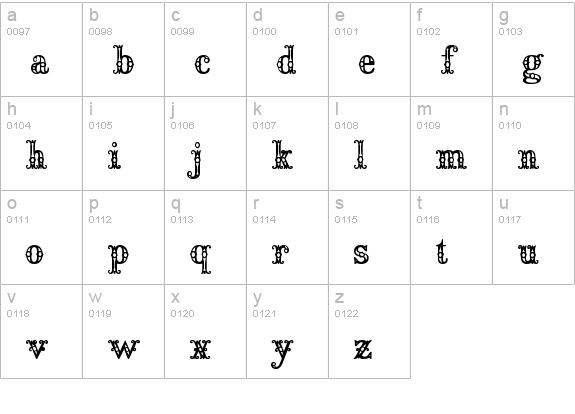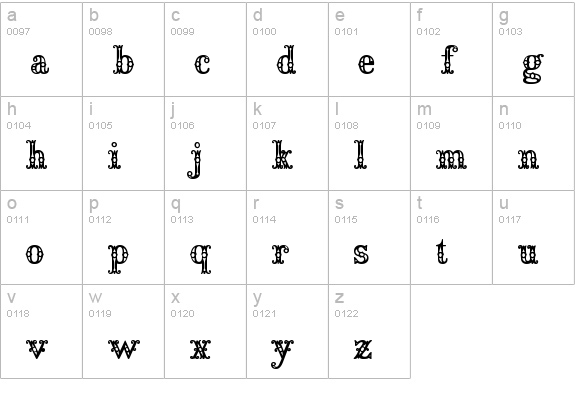
Saddlery Fill Font Details
Saddlery Fill is a captivating and highly versatile font that effortlessly blends a sense of elegance with a touch of whimsy. Its unique design evokes a nostalgic charm, reminiscent of a bygone era when handwritten letters were cherished and adorned with intricate details. The intricate strokes and delicate curves of Saddlery Fill create a visually stunning display that is sure to captivate the eye and add a touch of sophistication to any project. Whether used for branding, invitations, packaging, or any other creative endeavor, this font is guaranteed to make a lasting impression. One of the most remarkable aspects of Saddlery Fill is that it is freely available to download at FontsMarket.com. This means that designers and creatives alike can enjoy the beauty and versatility of this font without any limitations. Its availability as a free download allows for unrestricted creativity and ensures that everyone can experience the joy of working with such a captivating typeface. No matter the project or the audience, Saddlery Fill is sure to elevate the aesthetic and bring a sense of elegance to any design. Its timeless appeal and freely accessible nature make it a must-have font for any discerning designer or typographer. So why wait? Visit FontsMarket.com now and download Saddlery Fill to unlock a world of endless creative possibilities.